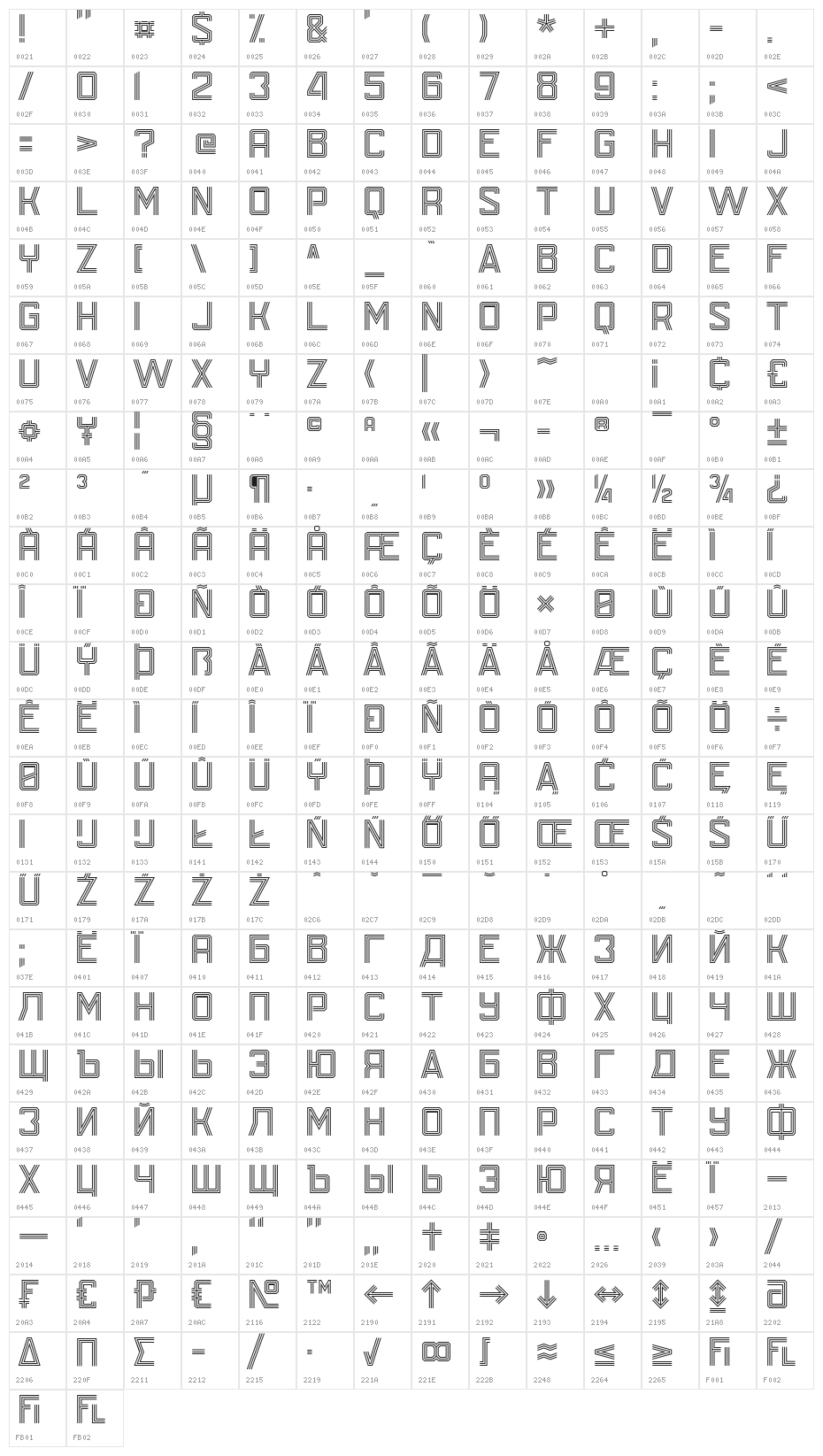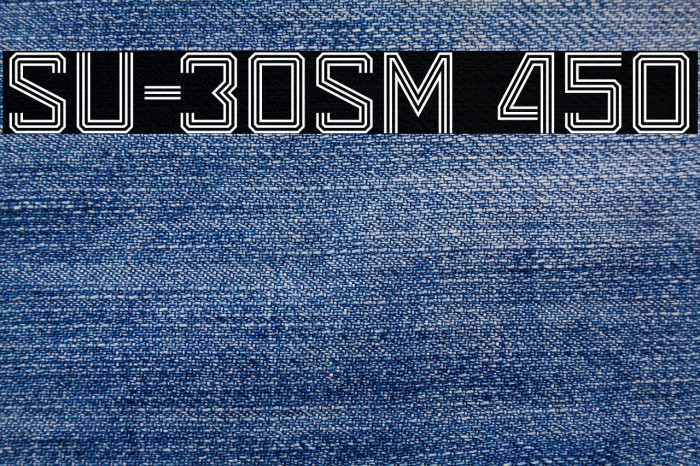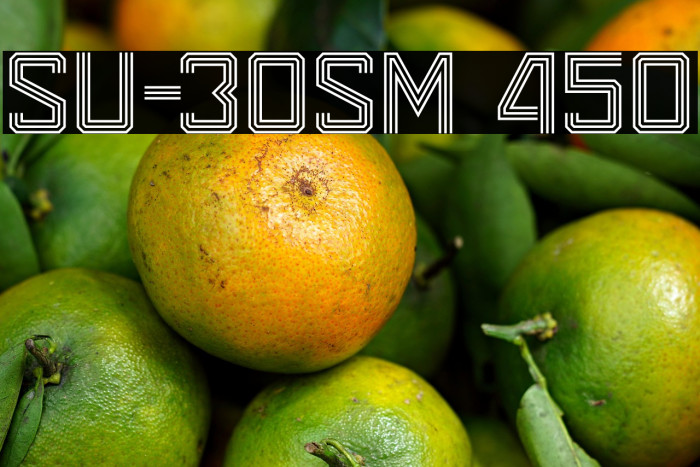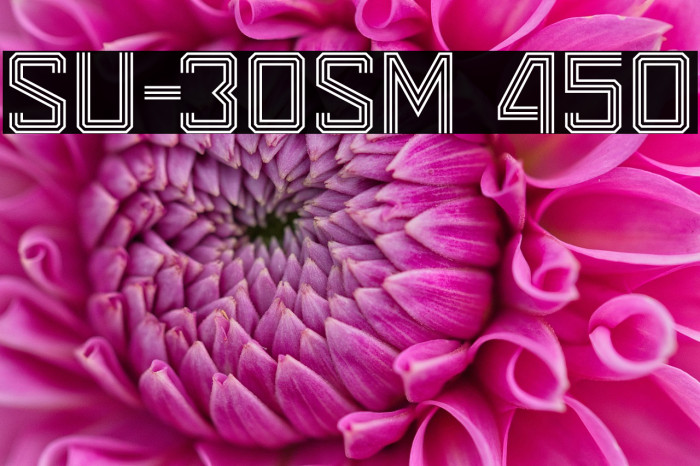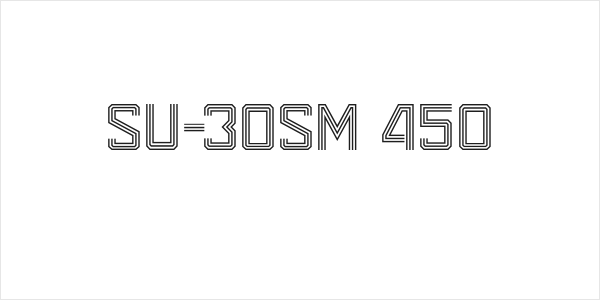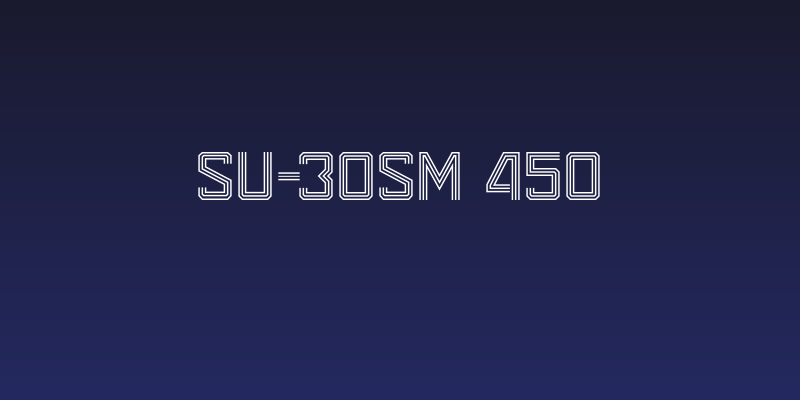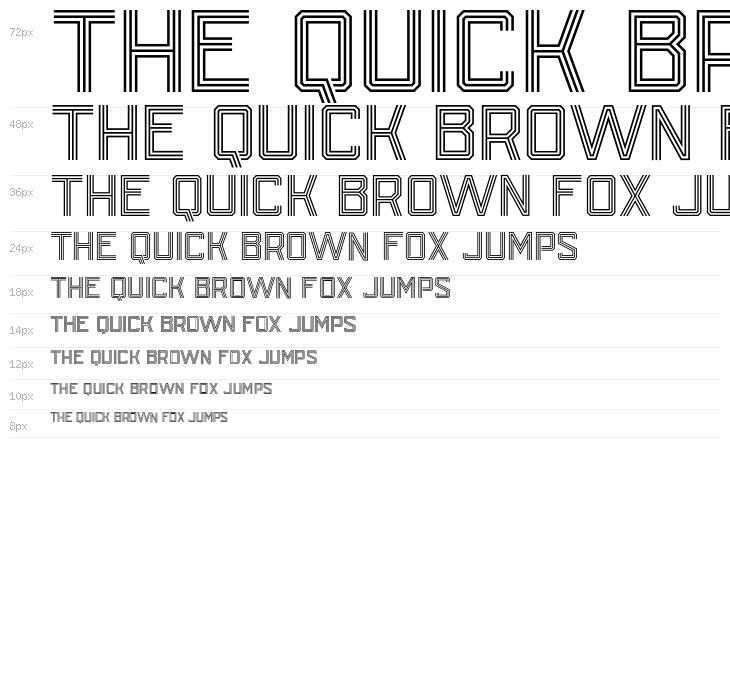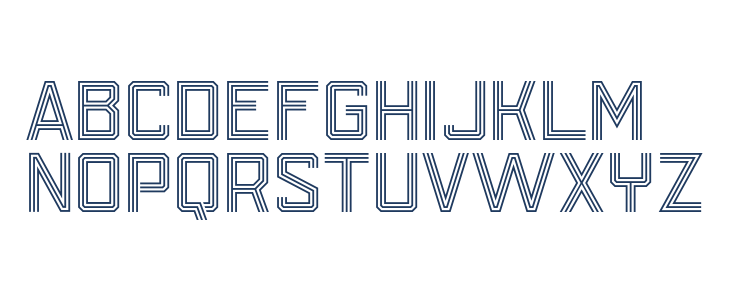
SU-30SM 450 Font
SU-30SM 450 Description
This font features a geometric, multi-line design that gives it a futuristic and technical appearance. Each character is constructed with multiple parallel lines, creating a sense of depth and complexity. The uppercase and lowercase letters maintain a consistent style, with sharp angles and clean lines. The numerals and special characters are designed to match the overall aesthetic, ensuring uniformity across all glyphs. This font is highly decorative and is best suited for projects that require a modern, tech-inspired look.
| Proposed Projects | Ideal for technology branding, sci-fi themed designs, video game titles, and futuristic posters. |